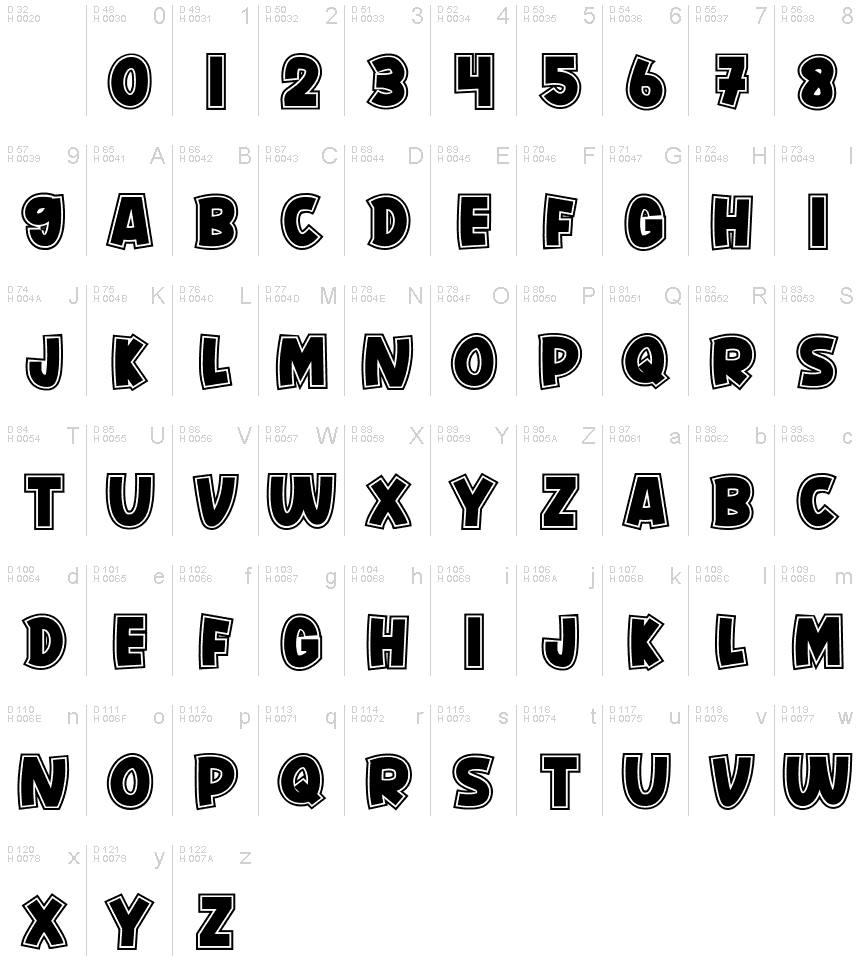
Comedo
Comedo, the creation of Share Font, is an extra-bold display font that brings a touch of playful charm to any project. Its cartoon-inspired style adds a whimsical and vibrant twist to various designs.
With its bold weight, Comedo is perfect for eye-catching headlines, attention-grabbing logos, and lively packaging designs. Let this font inject energy into children's books, animated films, or even birthday party invitations.
Comedo will surely captivate both young and old with its delightful and distinctive appearance.